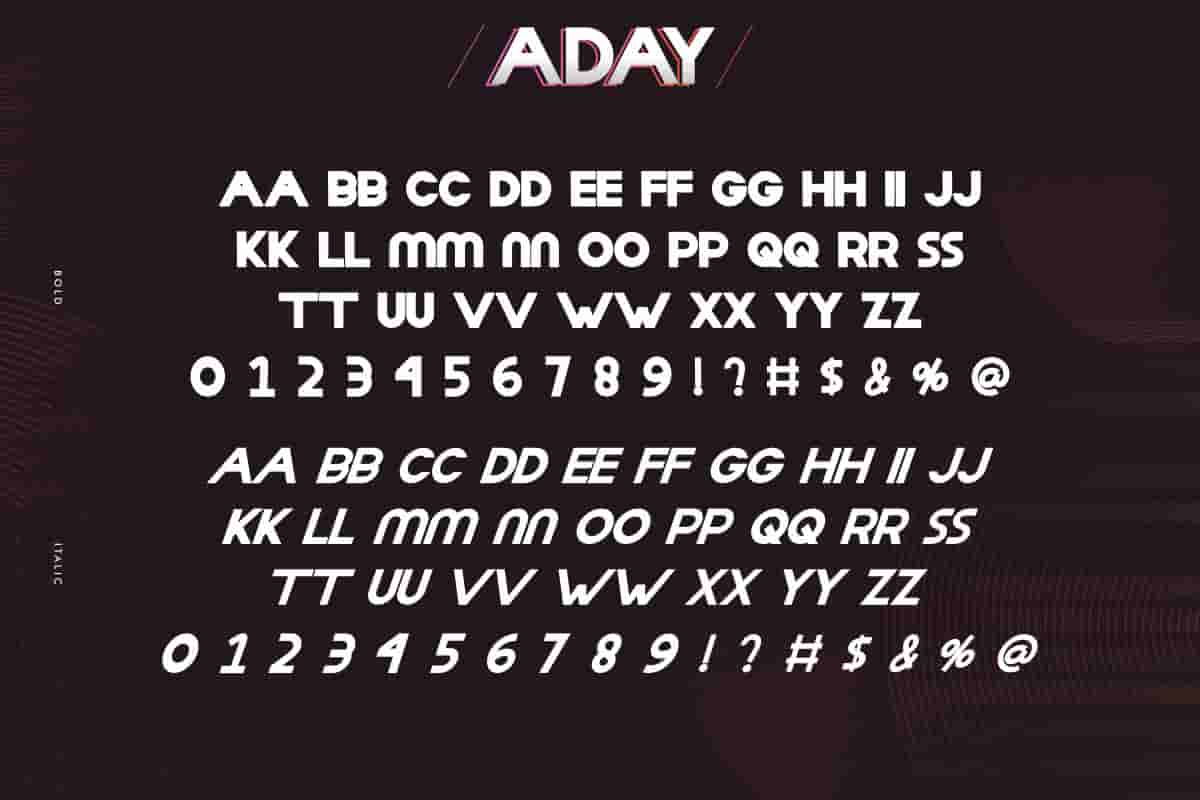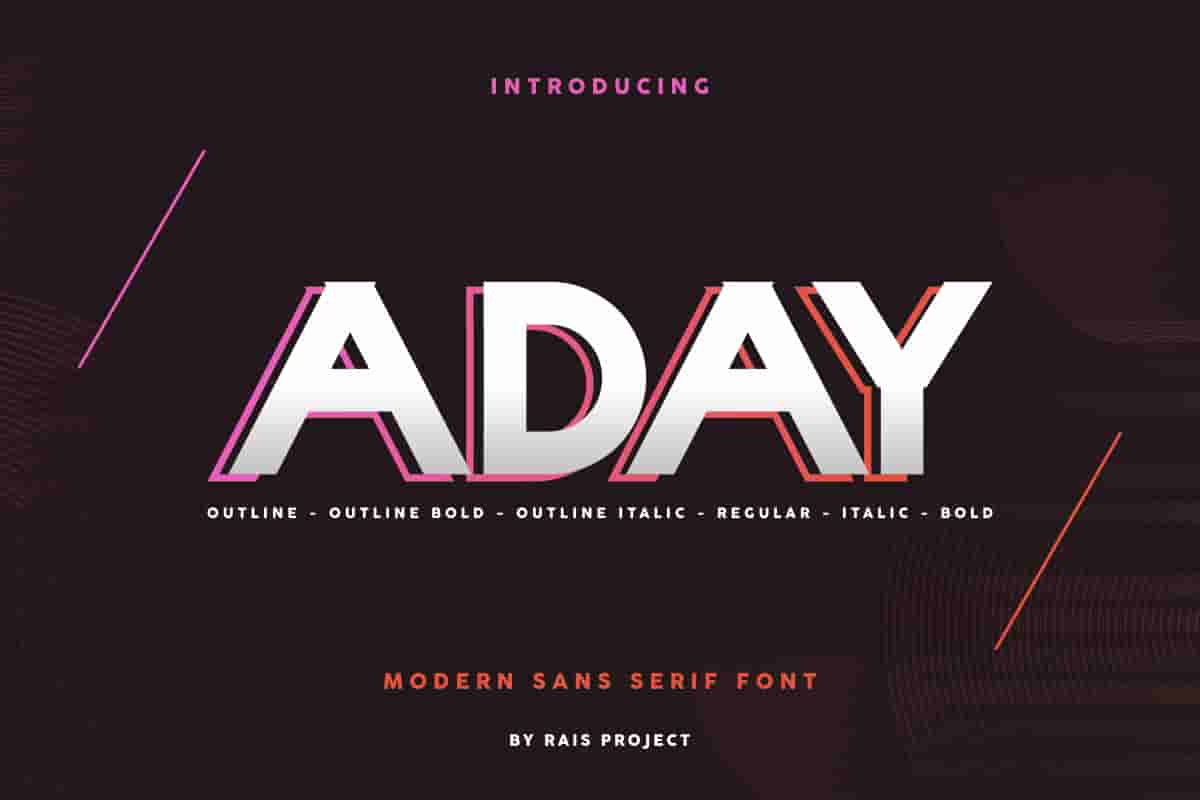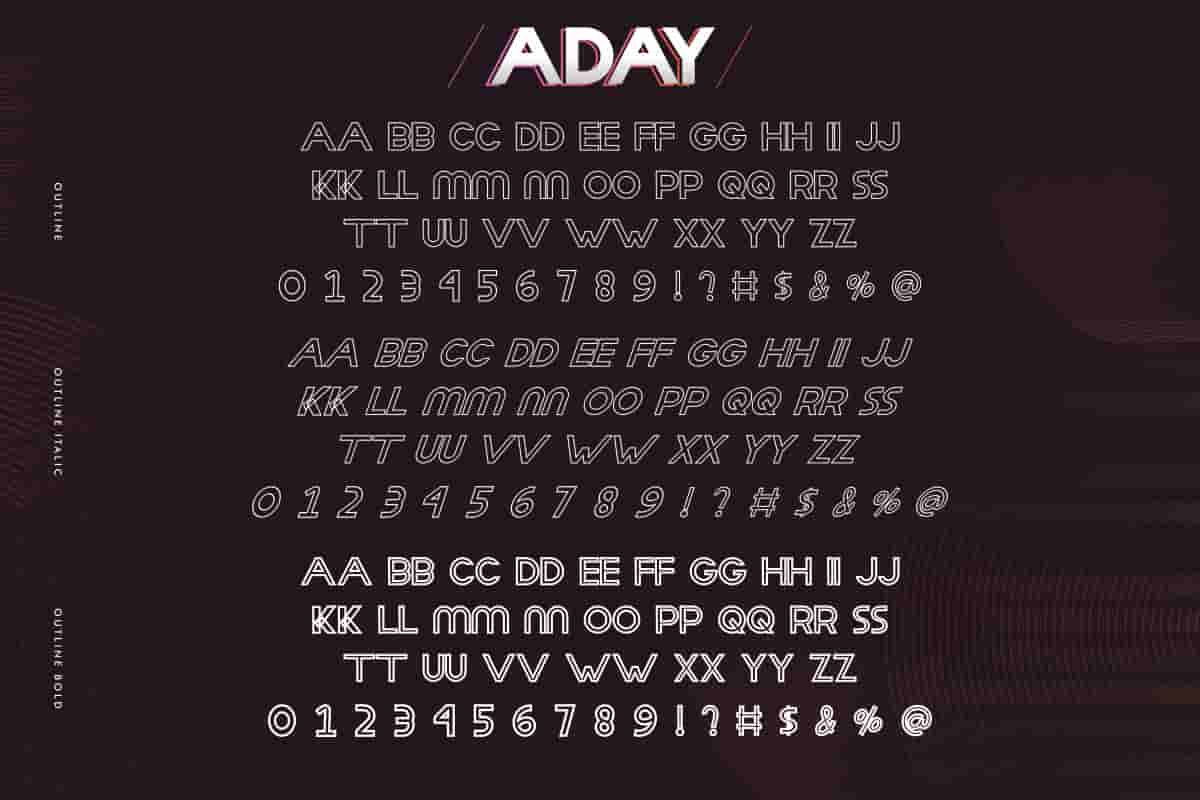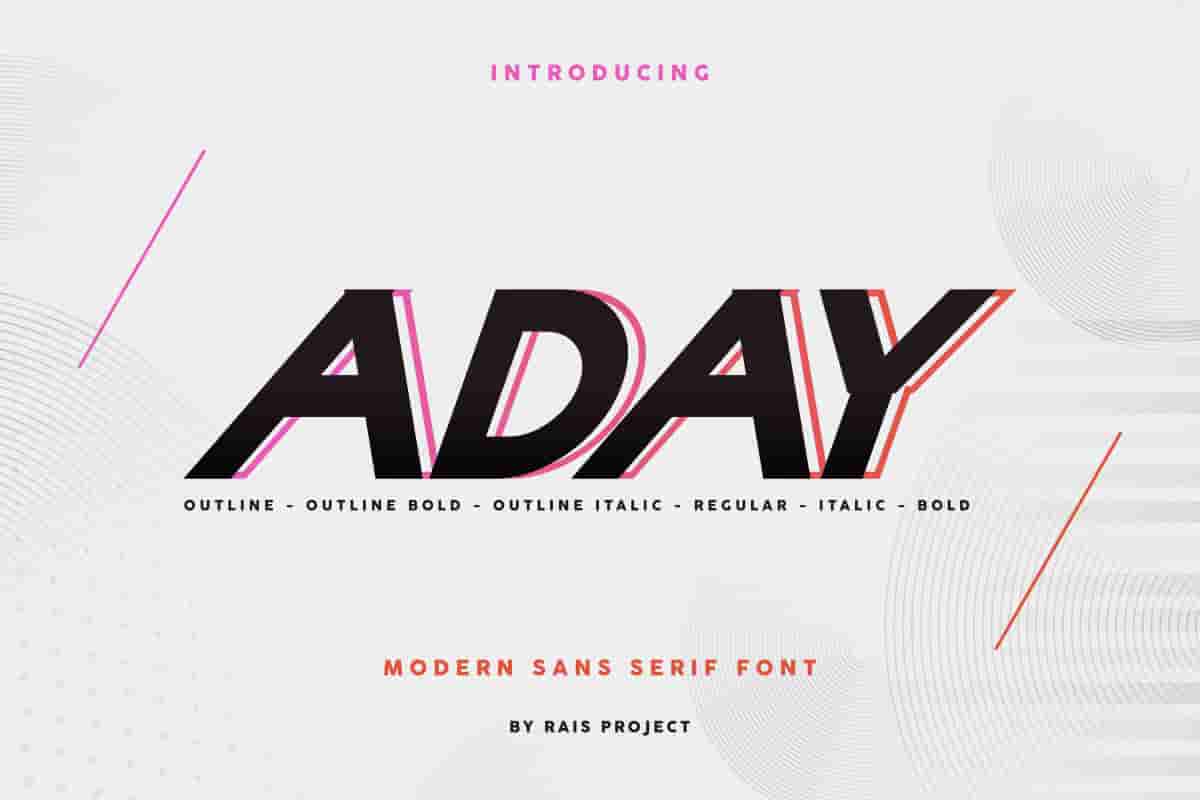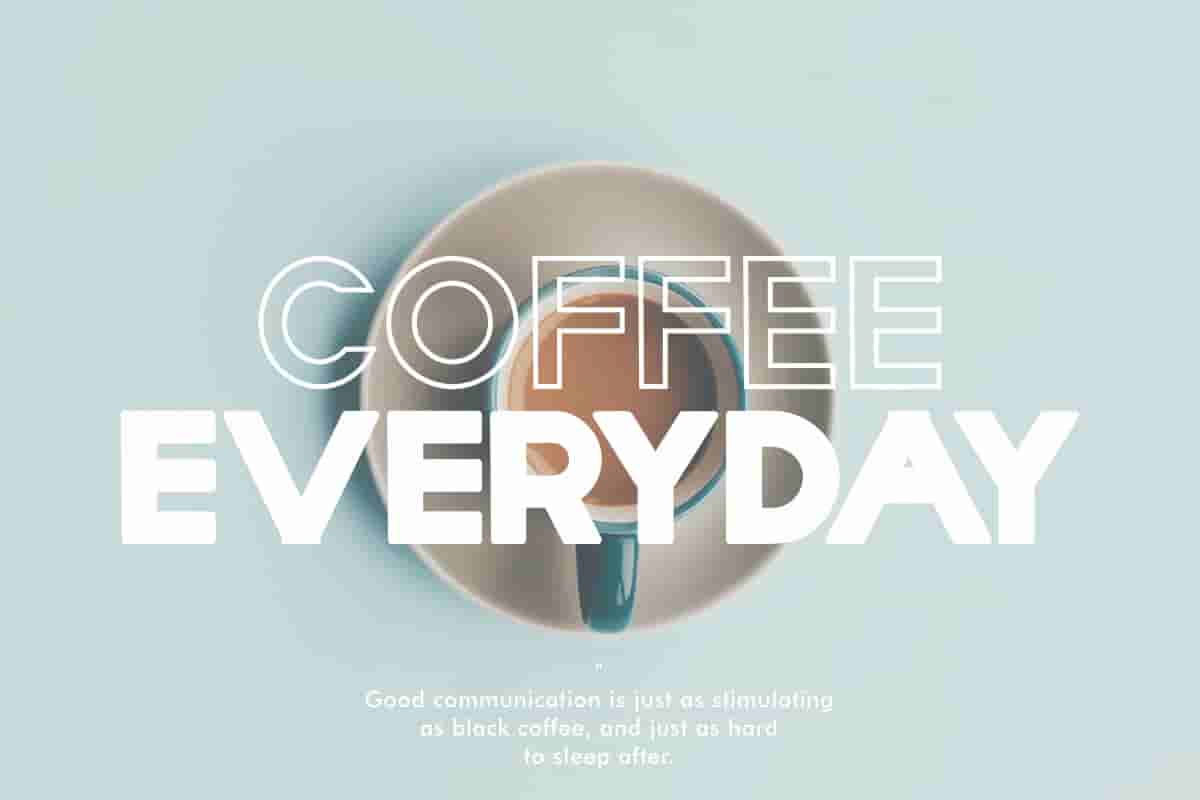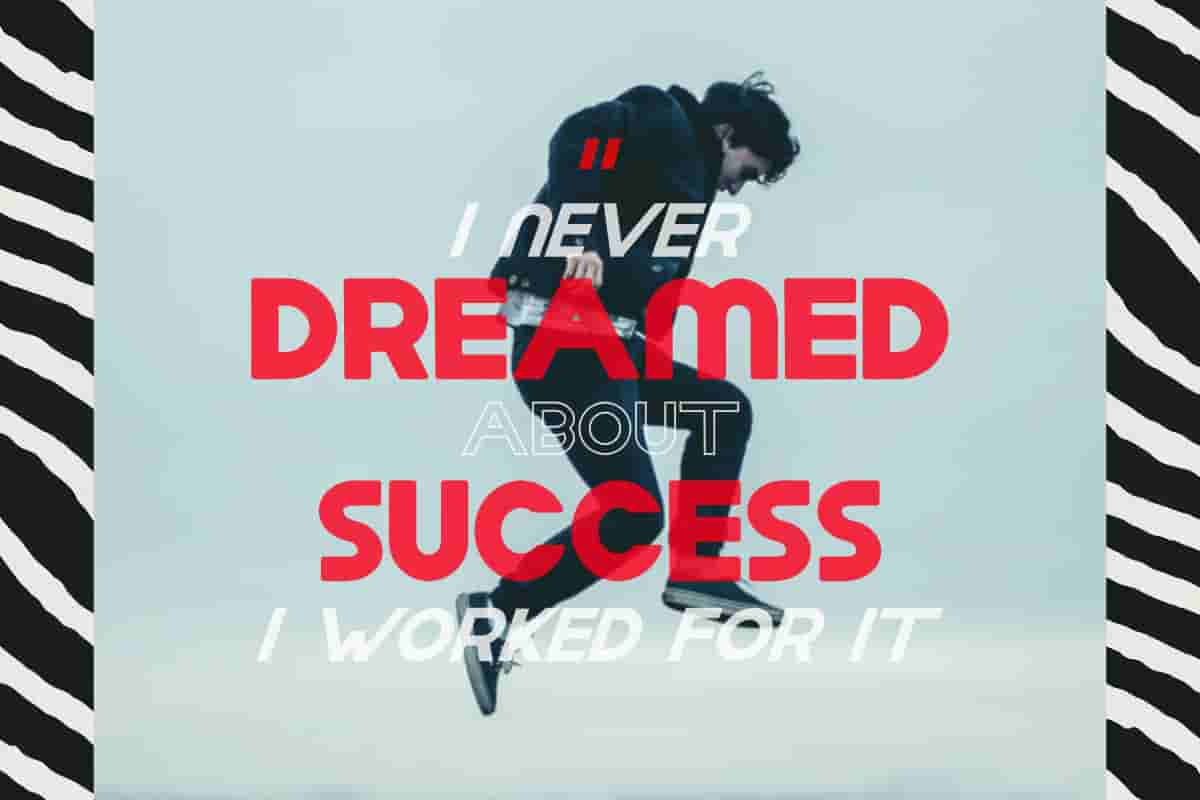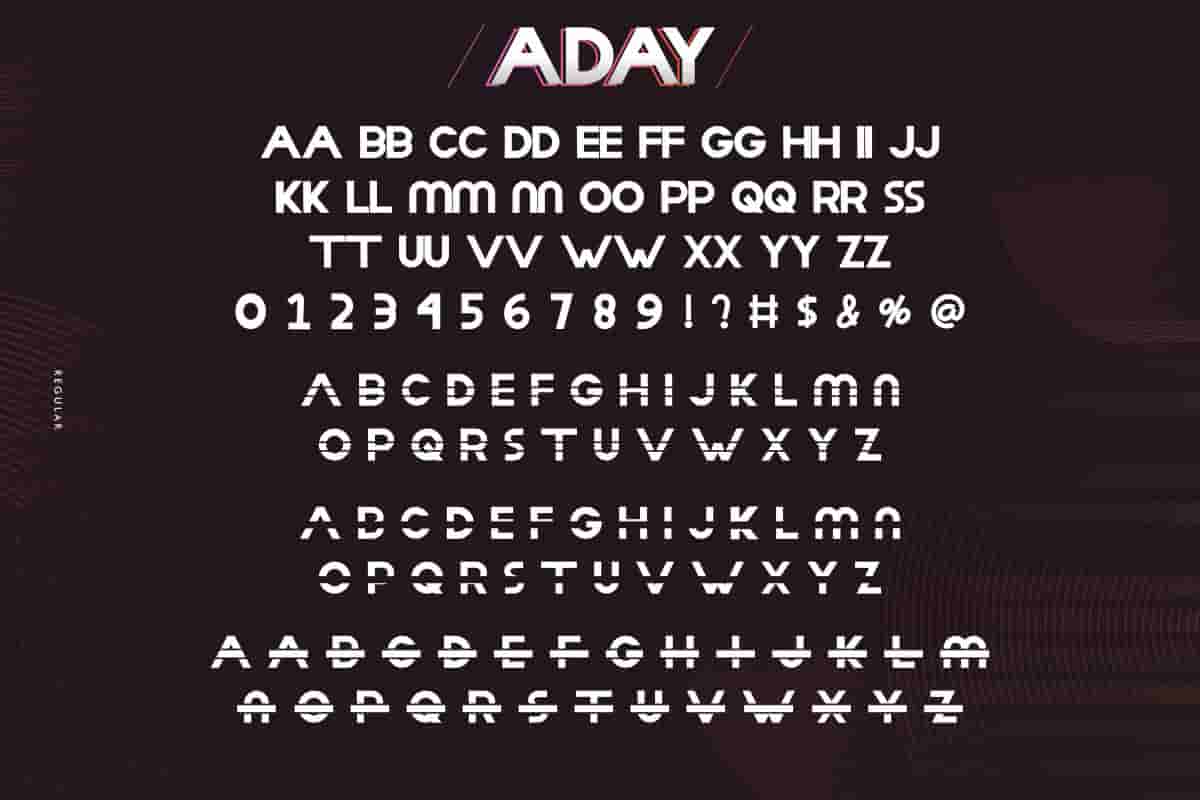
Aday Sans Serif Font
Aday Font is a display decorative sans serif font family, designed by Rais Project. The font has six different styles that great for Cosmetic, Beauty, Technology, Game, Magazine, Music, Sport etc
Aday Font is a Sans Serif display font family, designed by RaisProject. Aday Font is our new font on the market. It has clean, modern and stylish style. You can see the demo font below. You can also input any word you want so you can see what it will look like,Aday Font is remotely made by RaisProject team in Indonesia.
Aday Sans Serif Font delivers clean lines, bold structure, and timeless simplicity—perfect for brands that value clarity and confidence. With its modern and minimal aesthetic, Aday brings balance to every design, whether you’re creating logos, headlines.